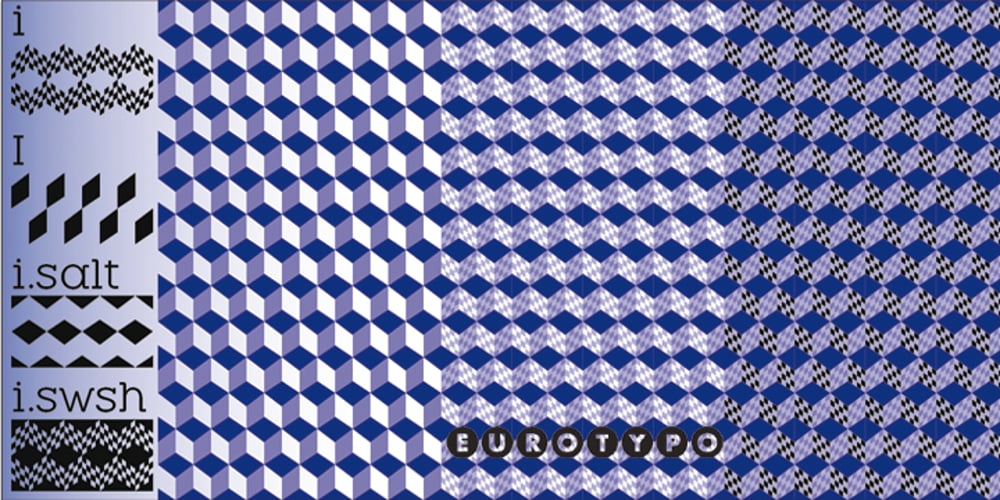
Quadratique
Quadratique font
Quadratique Font Family was designed by Juan A. Lavalle and published by Eurotypo. Quadratique contains 1 styles and family package options. Quadratique is the first font of a large family that was originated in geometric patterns. We developed a system through a square of 6 modules of side, which are transformed and combined to give up 104 originals glyphs. As a result, each letter is a subfamily that may be combined by overlapping (A, a, a.salt and a.swsh) and thus generate more than 365 glyphs, or thousands if we combine different letters. Quadratique is so easy to use, that user does not need guidance. You just must typeset [aaaa, bbbb, etc.] and start to play, try to make that each module overlapping with others and repeat [(a + A) (a + A), etc.] You may create thousands of new patterns and creative frames just combining different modules.